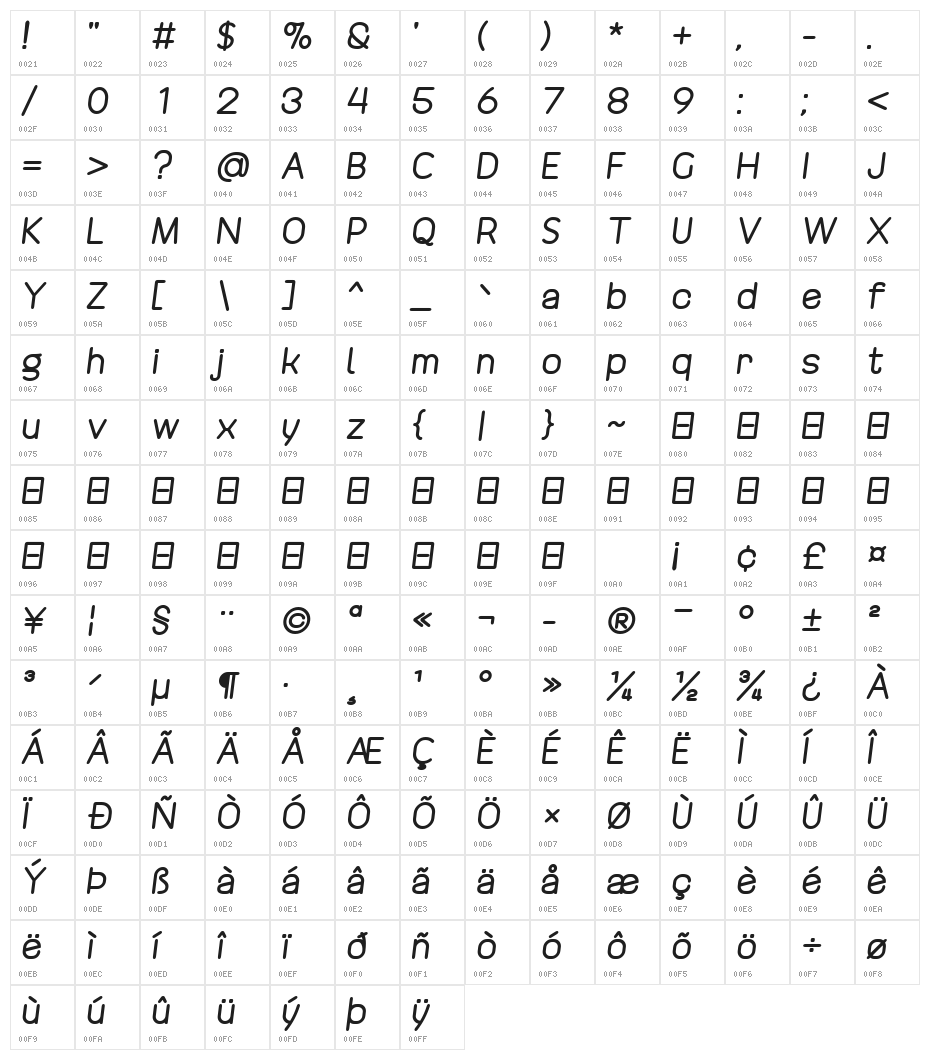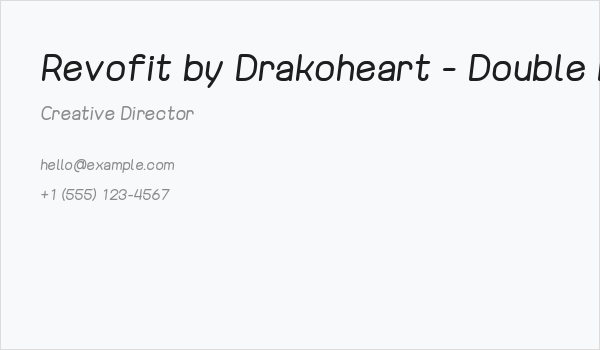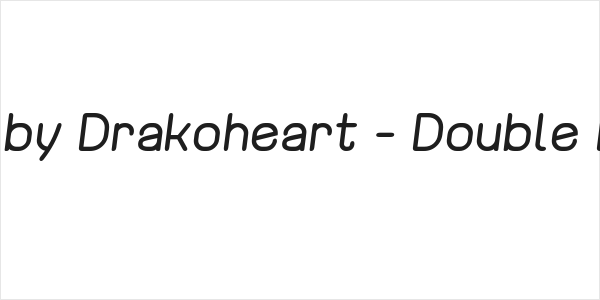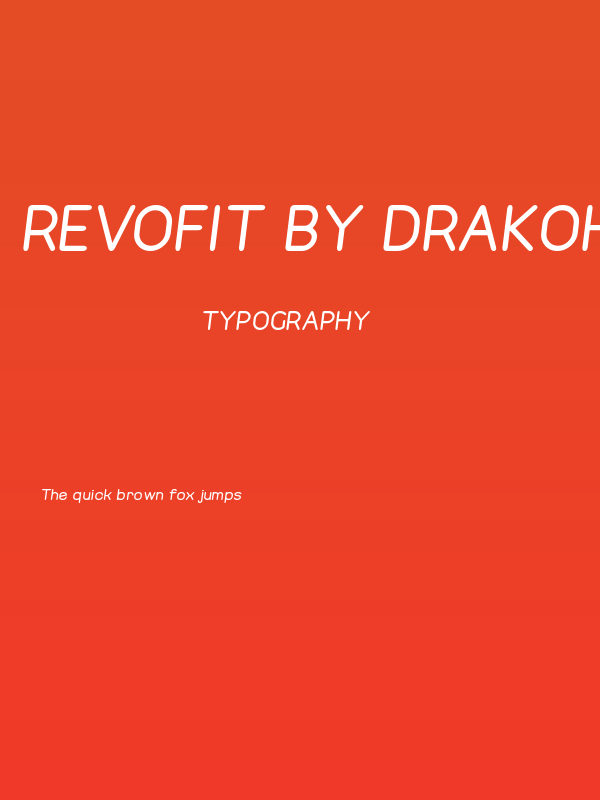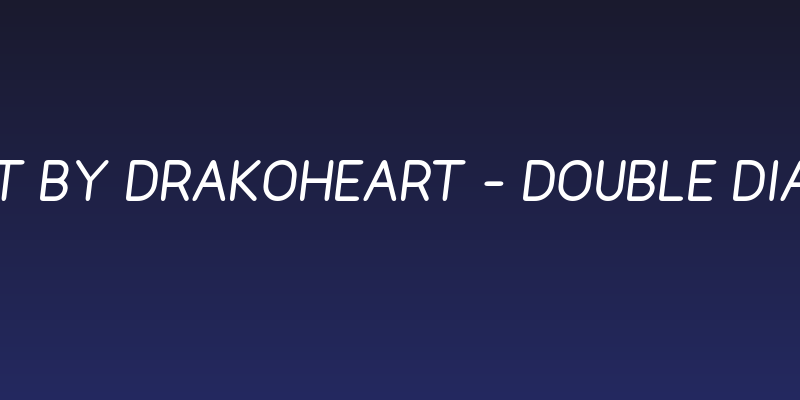
Revofit by Drakoheart - Double Diagonal Font
Revofit by Drakoheart - Double Diagonal Description
This font features a modern and sleek design with a slight diagonal slant, giving it a dynamic and energetic appearance. The characters are rounded and smooth, contributing to a friendly and approachable feel. The uppercase and lowercase letters maintain a consistent style, with a uniform stroke width that ensures readability. The numerals are clear and distinct, matching the overall aesthetic of the alphabet. Special characters are well-integrated, maintaining the font's cohesive look. This font is versatile and can be used in various design contexts where a contemporary and informal tone is desired.